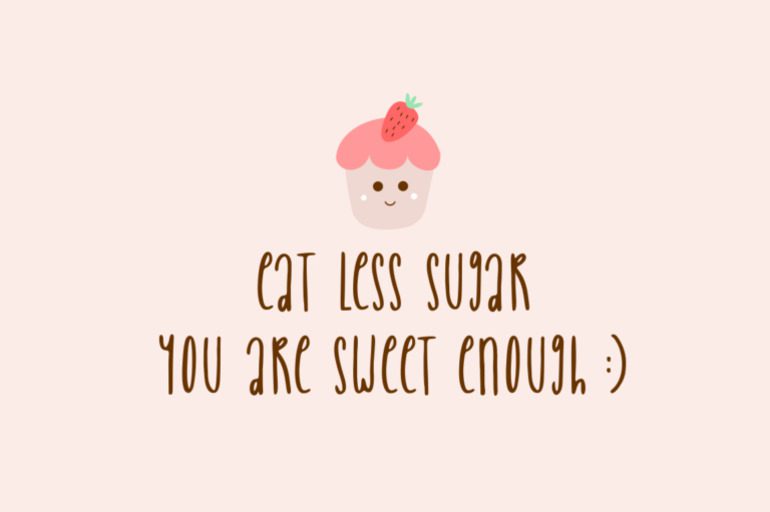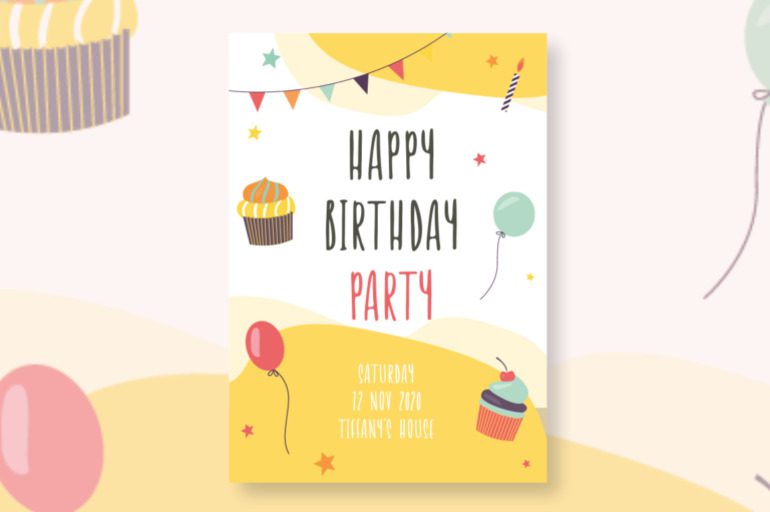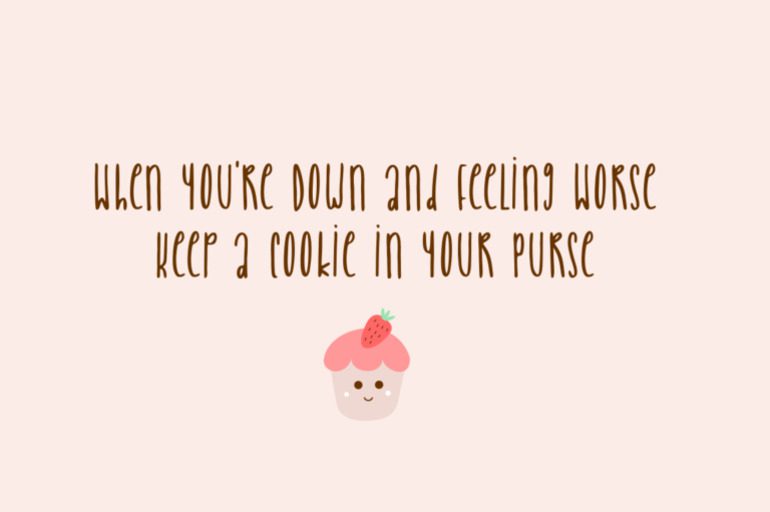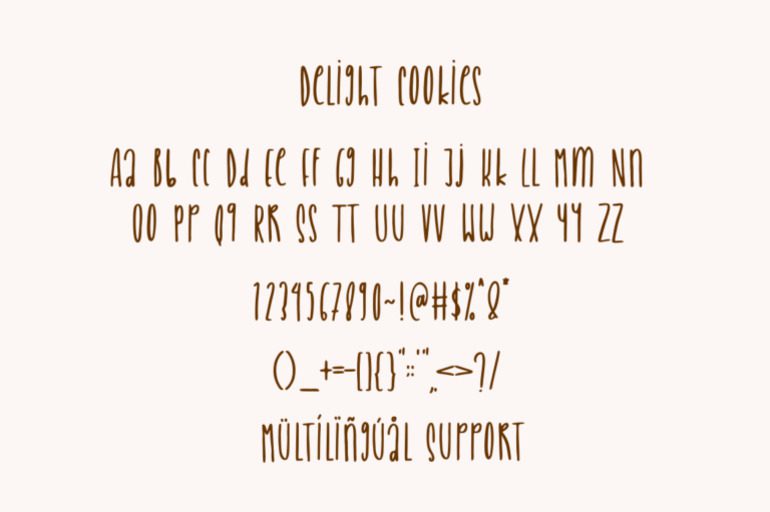
Delight Cookies Font
Delight Cookies font is a charming and playful typeface inspired by the sweet and whimsical essence of freshly baked cookies. Featuring rounded edges, soft curves, and a cheerful style, it exudes warmth and friendliness. Perfect for bakery logos, packaging, invitations, or children’s projects, this font brings a delightful touch to any design. Its versatile yet unique character makes it ideal for adding a cozy, handcrafted feel to your creations.